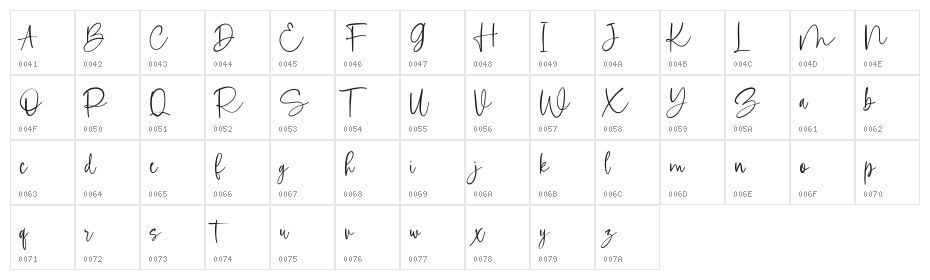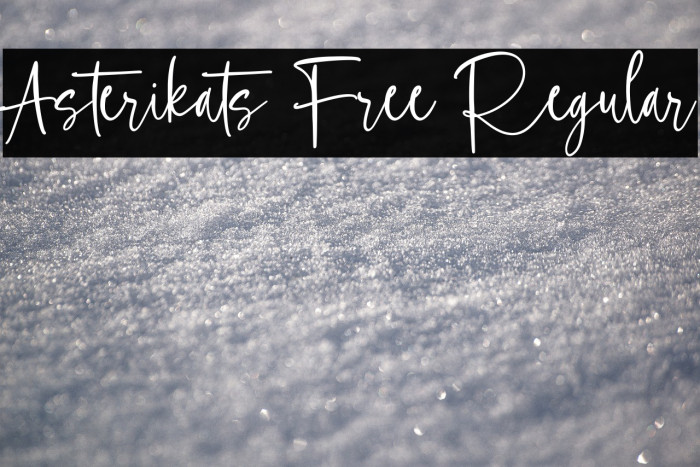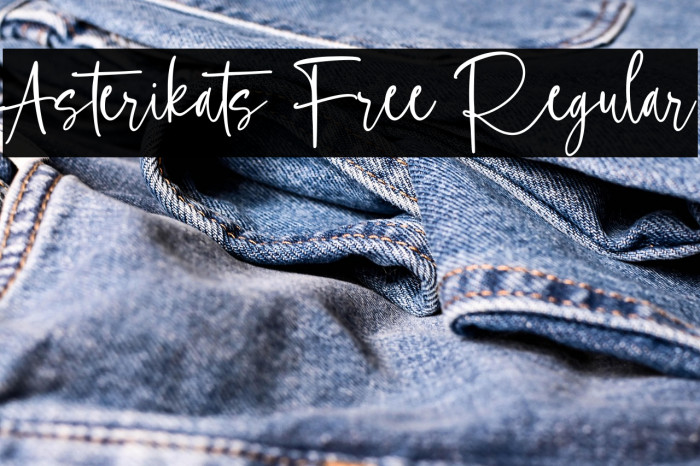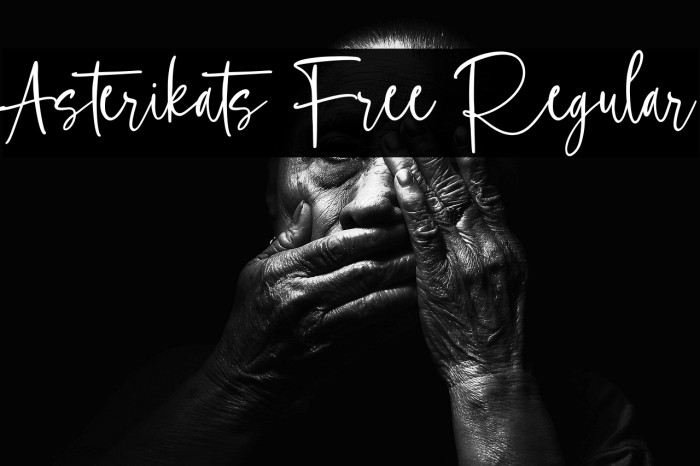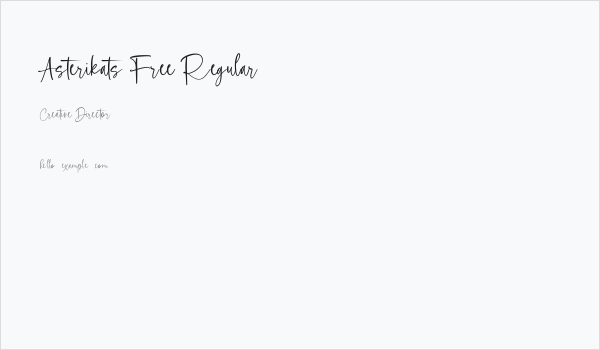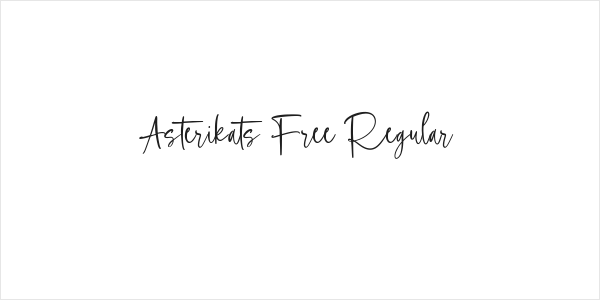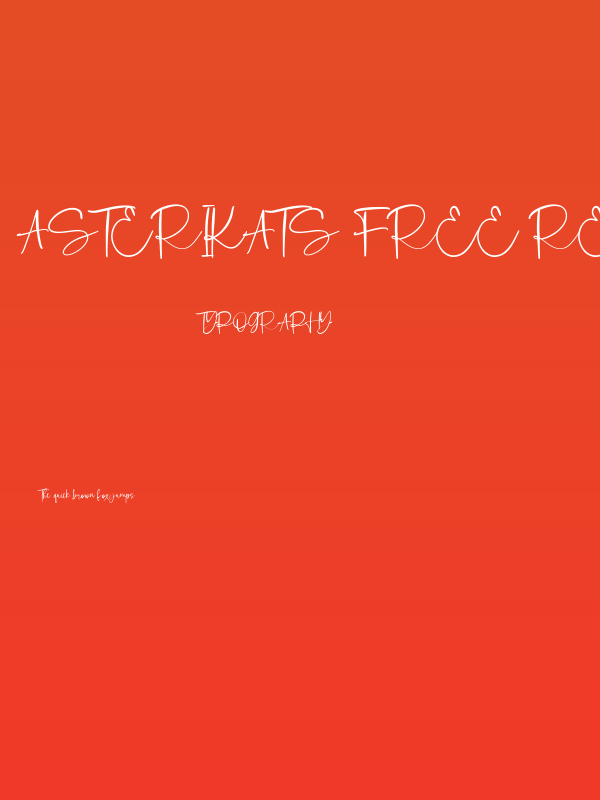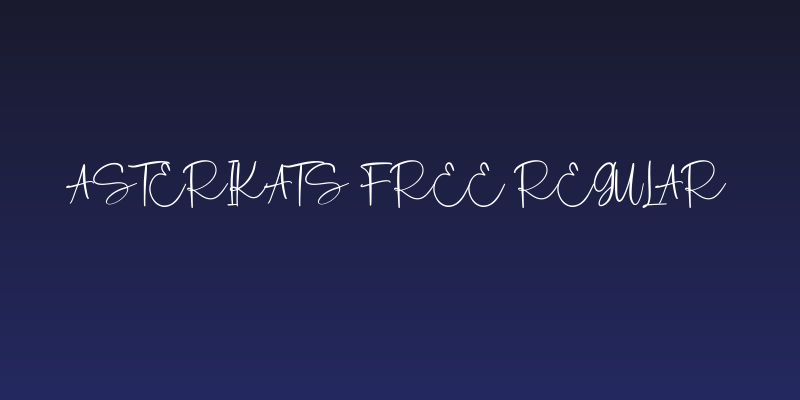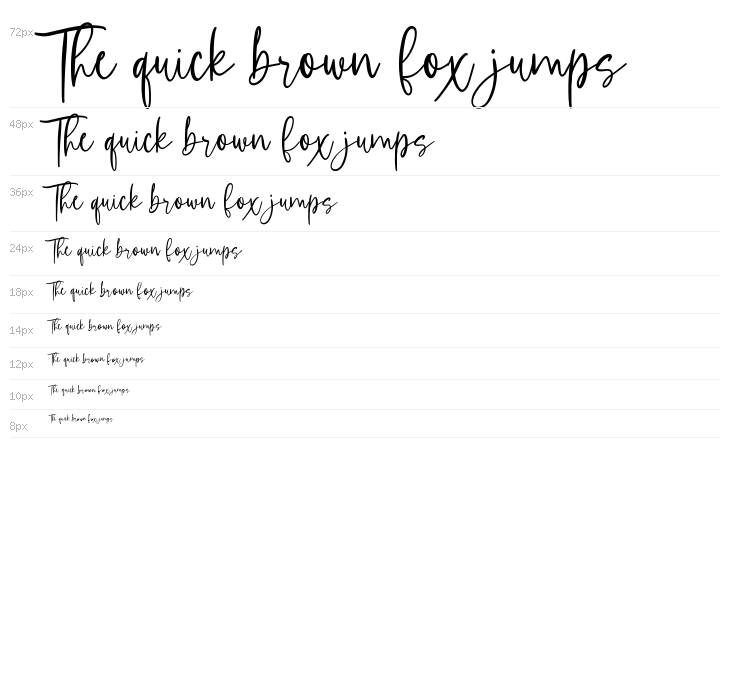
Asterikats Free Regular Font
Asterikats Free Regular Description
This font exhibits a playful and artistic handwritten style, characterized by its fluid and connected letterforms. The strokes are smooth and flowing, with a natural rhythm that mimics the motion of cursive handwriting. Each character is distinct yet harmoniously blends with others, creating a cohesive and elegant appearance. The uppercase letters are slightly more structured, while the lowercase letters maintain a casual and freeform look. This font is versatile, suitable for adding a personal touch to various design projects, from invitations to branding materials.
| Proposed Projects | Ideal for wedding invitations, personal branding, greeting cards, and creative projects that require a personal touch. |